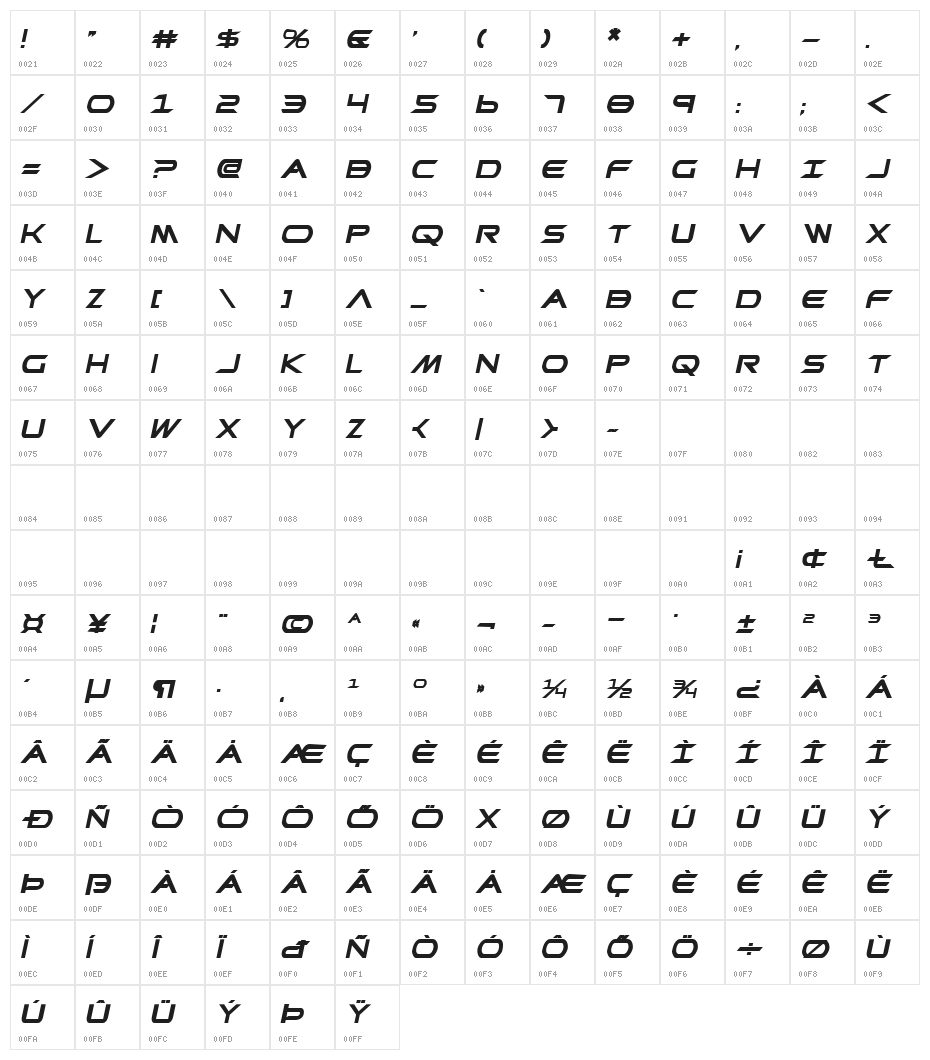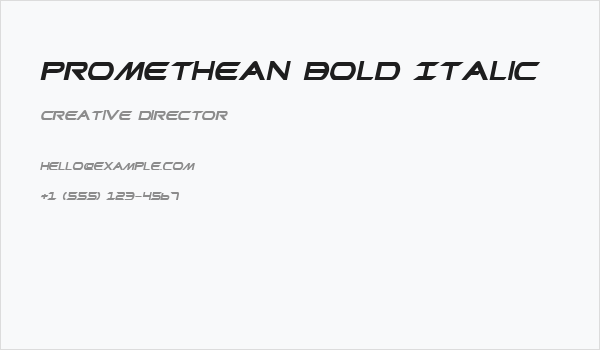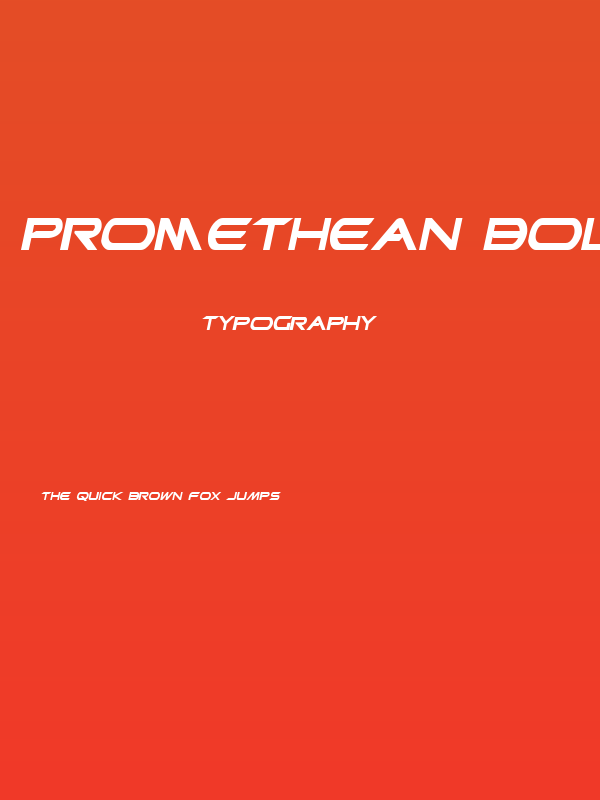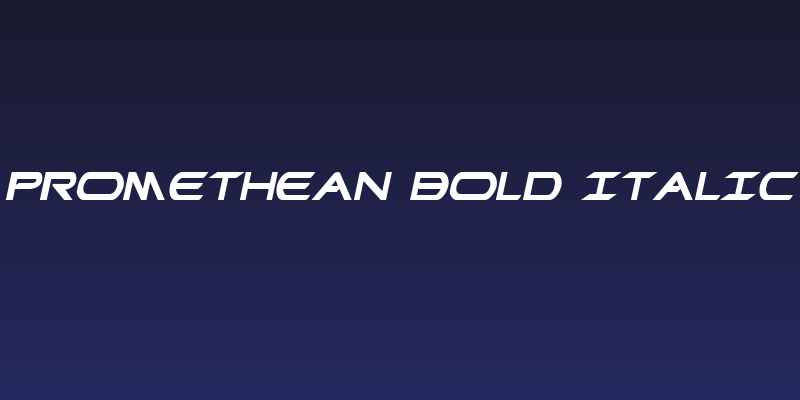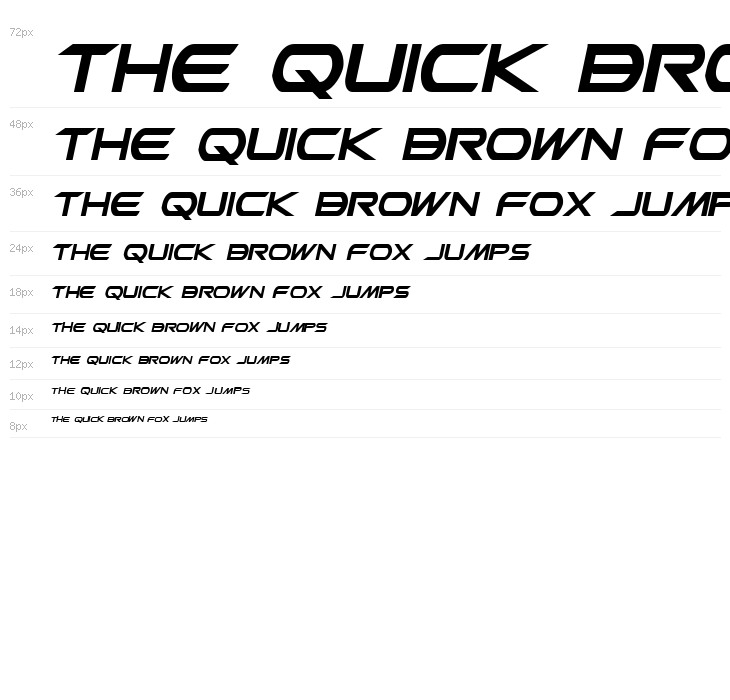
Promethean Bold Italic Font
Promethean Bold Italic Description
This font exhibits a bold and italicized style with a futuristic and dynamic appearance. The characters are slanted, giving a sense of motion and speed. The strokes are thick and consistent, providing a strong visual impact. The design features sharp angles and geometric shapes, particularly noticeable in the uppercase letters. The numerals and special characters maintain the same bold and italicized characteristics, ensuring uniformity across all glyphs. This font is ideal for projects that require a modern and edgy look, such as technology branding or sports-related designs.
Proposed ProjectsIdeal for technology branding, sports designs, and modern advertising.